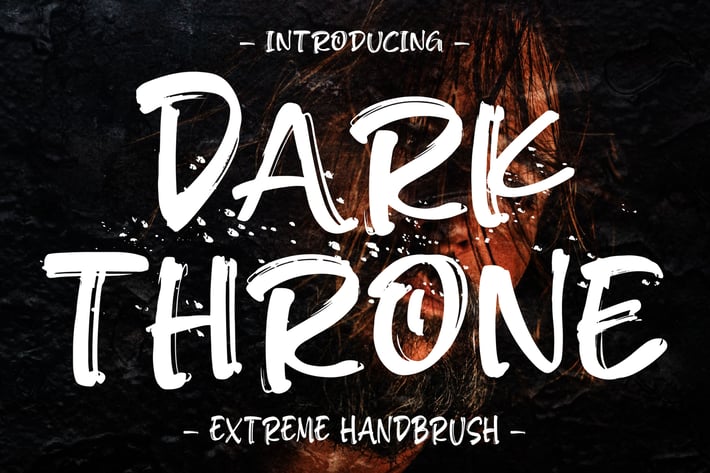
Dark Throne Extreme Handbrush Font
Dark Throne is an extreme handbrush font packed with raw texture, bold strokes, and gritty energy. Crafted for designs that need attitude, this typeface brings an intense and fearless look to your visuals. With its rough edges and expressive brush movement, it adds a dramatic, rebellious touch perfect for standout typography.
Extreme handbrush style with bold, textured strokes
Organic, gritty letterforms for strong visual impact
High-contrast strokes for an aggressive aesthetic
Poster titles
Streetwear branding
Album covers
Social media graphics
Sports visuals
Movie or game titles
Bold merchandise designs
Raw, gritty, and unapologetically bold — Dark Throne brings fierce brushstroke energy to every design.